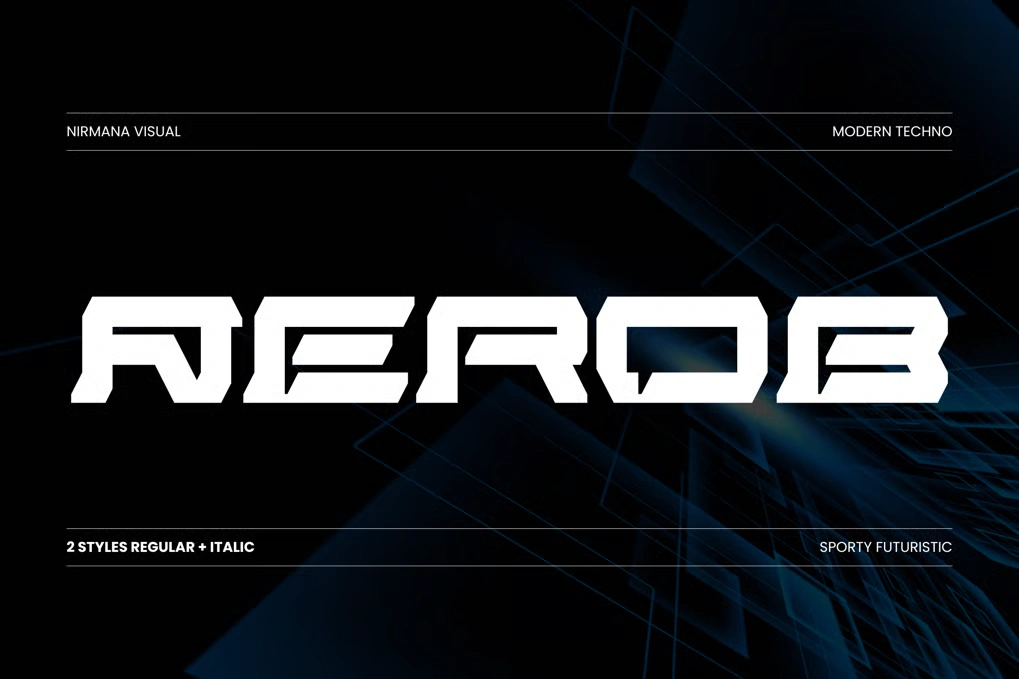
Logo Sports Modern Font – Aerob
Modern Aerob- Branding Logo Font
Modern Aerob offers beautiful typographic harmony for a diversity of design projects, including logos & branding, social media posts, advertisements & product designs.